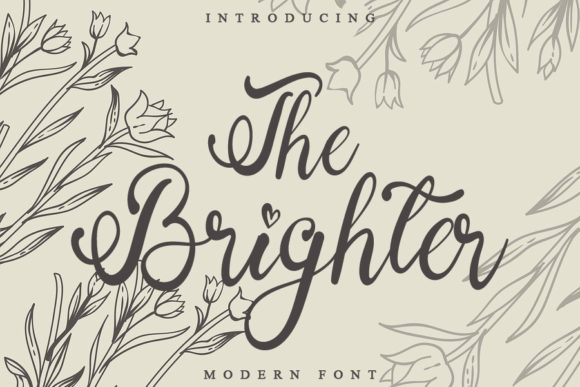
**The Brighter Font**
The Brighter is an enchanting and elegant script typeface, a beloved creation of the talented designer ABBAsalam. With its delicate curves and graceful strokes, The Brighter brings an air of sophistication and allure to any design project.
**A Symphony of Style and Grace for Your Creations**
Whether you are crafting a captivating logo that will leave a lasting impression, or designing a website that exudes timeless charm, The Brighter is your perfect companion. Its sweeping lines and refined character add a touch of effortless elegance to every design element, elevating your creations to new heights.
**A Versatile Gem for Limitless Expression**
The true beauty of The Brighter lies in its remarkable versatility. From branding projects where you desire a touch of sophistication to invitations that yearn for a sprinkle of whimsical charm, The Brighter seamlessly adapts to suit your every need. Its captivating presence enhances labels, photography, watermarks, and countless other design concepts, bringing a cohesive and visually stunning aesthetic to all your endeavors.
**The Brighter: Your Key to Unforgettable Designs**
With The Brighter at your disposal, you embark on a journey to create designs that captivate hearts and leave an indelible mark. Its graceful presence adds an irresistible charm to logos, making them unforgettable symbols of your brand's essence. Embellish your websites with The Brighter's alluring curves, inviting visitors to explore a world of elegance and sophistication.
**Discover the Brighter – Let Your Designs Bloom with Enchantment**
If you seek a typeface that will transform your designs into masterpieces of grace and beauty, The Brighter awaits you. Its magical touch will cast a spell on your creative endeavors, leaving a lasting impression that whispers of timeless elegance and enchanting charm.